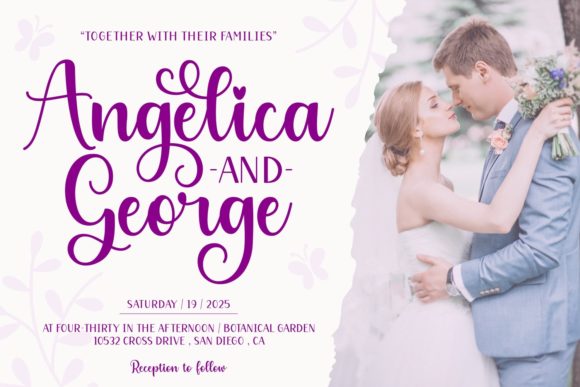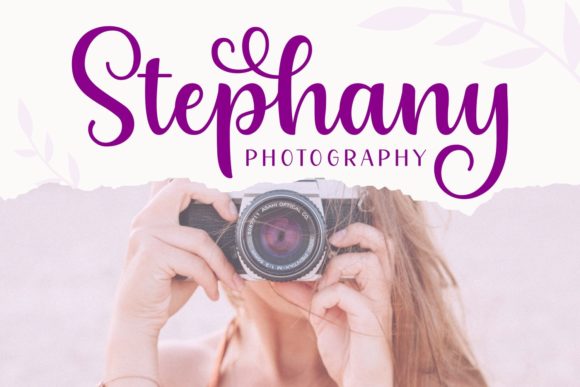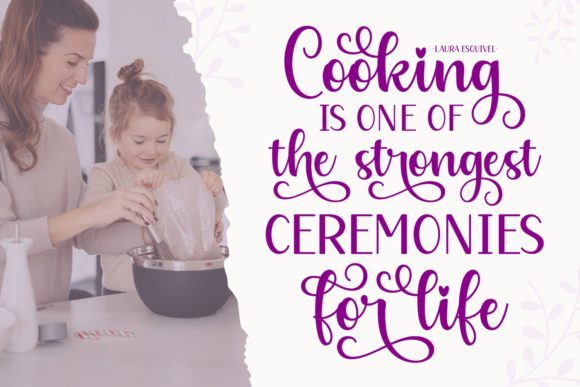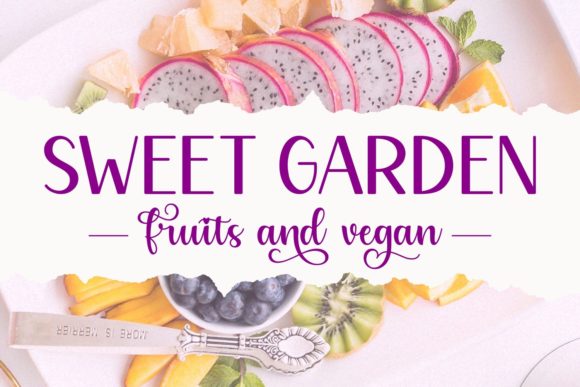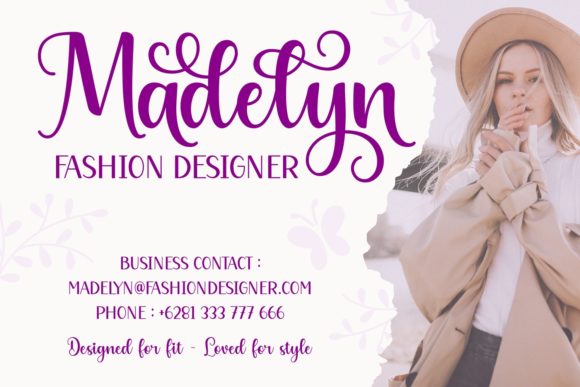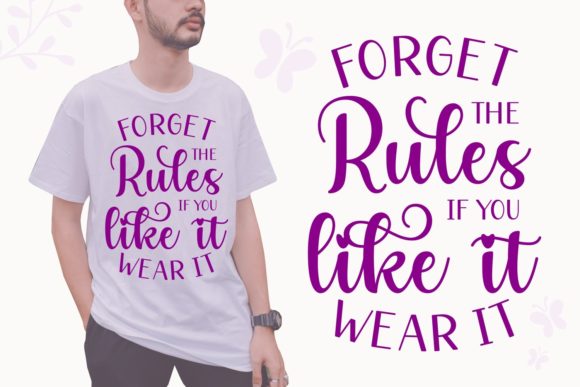
Introduction to Beloved Sister Duo Font
Do you remember that moment when you finally nailed the perfect combination of fonts in your creative project? The one that made your design stand out and told a story? For designers, finding the right font can be a game-changer. And today, we’re excited to introduce you to a new favorite: the Beloved Sister Duo Font.
This lovely and versatile duo font is a masterclass in balance, blending bold and elegant, delicate and assertive styles in perfect harmony. Whether you’re working on a high-quality design project or simply need a reliable design resource, the Beloved Sister Duo Font is sure to impress. And the best part? It’s available for free download, complete with a transparent background for seamless integration into your designs.
Key Features of Beloved Sister Duo Font
- Unique, hand-drawn design featuring two sister characters, ideal for family-themed projects.
Honest Review: Beloved Sister Duo Font
I recently had the chance to work with the Beloved Sister Duo Font, and I must say it’s been a fantastic addition to my creative project.
What works well about this font is its high quality and versatility. It’s a beautiful, cursive script that works perfectly for titles, headings, and even body text. The font is available for free download, which is a huge plus for designers on a budget. The transparent background option is also a great feature, allowing for easy customization and composition.
However, I did encounter some limitations with the font. The Beloved Sister Duo Font is a bit on the larger side, which can make it difficult to use in small-scale designs. Additionally, the font doesn’t include any alternate characters or ligatures, which can limit its usability in certain situations.
Overall, I’m very impressed with the Beloved Sister Duo Font. While it may have some limitations, its high quality and versatility make it a valuable addition to any designer’s toolkit.
The Beloved Sister Duo Font is a high-quality design resource that is perfect for any creative project. This beautiful font is available for free download and features a transparent background, making it easy to use in a variety of applications.
The Beloved Sister Duo Font is perfect for a variety of creative projects, including social media graphics, blog posts, and presentations. It’s also great for creating custom invitations, quotes, and other design elements.
Project 2: Modern Monogram Stationery
Create professional-looking stationery using Beloved Sister Duo Font and elevate your personal and business communications.
How to use: Use the Beloved Sister Duo Font to create a custom monogram or logo, and pair it with a high-quality paper design resource. The font’s clean lines and modern style make it perfect for creating a sophisticated and polished look.
Tips: Combine the Beloved Sister Duo Font with a geometric pattern or a simple background to create a striking and modern design.
Project 3: Vintage-Inspired Quote Art